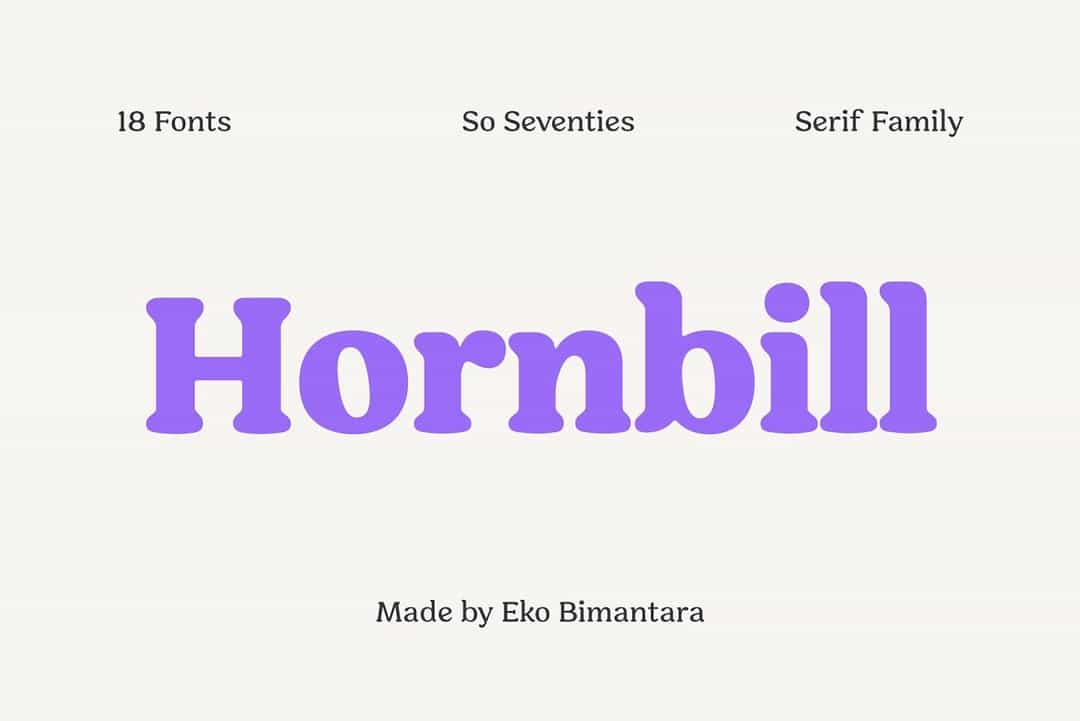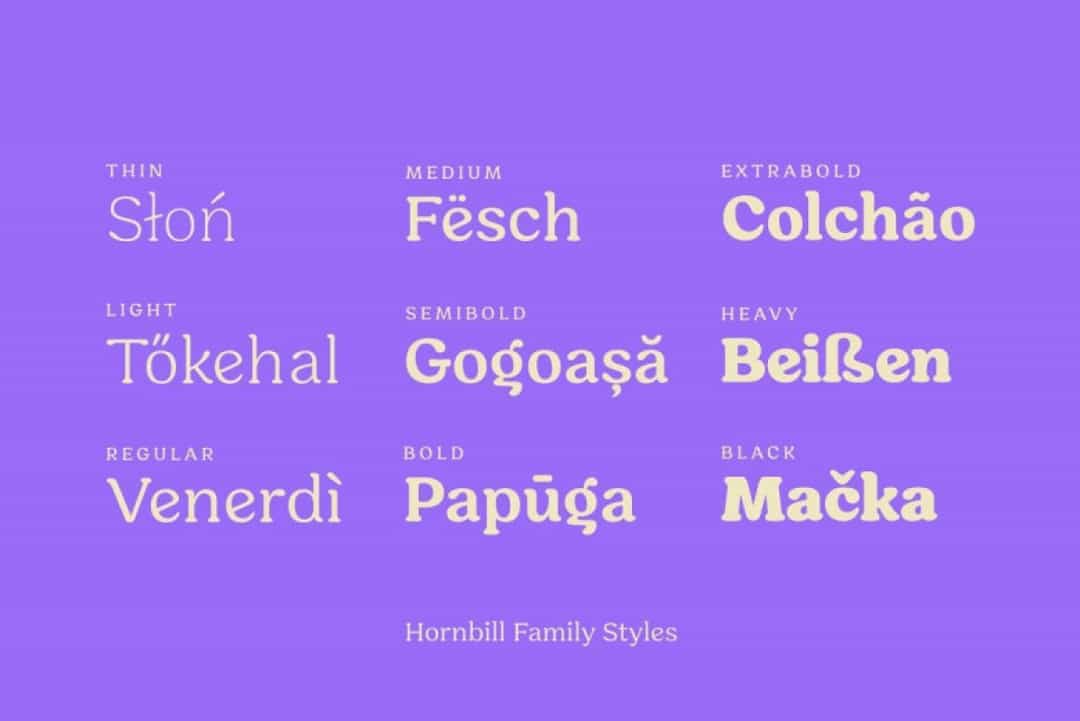
Hornbill is a soft serif font family that has been designed based on the retro styles of the seventies. Hornbill is clean and multifaceted letterform that is suitable not only for display type, but also for text type. Hornbill comes in 18 flavors, ranging from thin to black with each having its own italics.